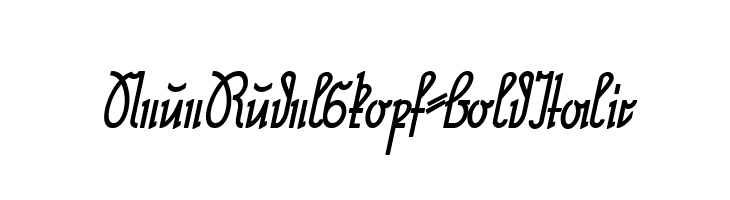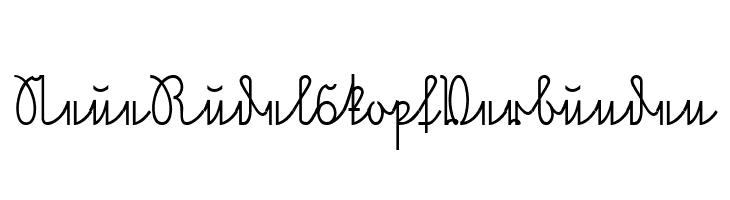
• NeueRudelskopf-Bold
A bold, decorative font with intricate loops and curves, perfect for artistic projects.
• NeueRudelskopfVerbunden-Italic
A flowing, cursive italic font with connected letters and a classic, elegant style.
• NeueRudelskopf
An intricate and decorative font with elongated, curved strokes and artistic flair.
• NeueRudelskopfVerbunden-Bold
A bold, artistic script font with flowing, connected characters.
• NeueRudelskopf-Italic
An elegant, italic cursive font with flowing, interconnected letterforms.
• NeueRudelskopfVerbunden
A cursive, decorative font with interconnected strokes and a handwritten appearance.
• NeueRudelskopfVerbunden-BoldIta
A bold, italic cursive font with interconnected letters and a handwritten style.
• NeueRudelskopf-BoldItalic
A bold, italic script font with flowing, interconnected letterforms.